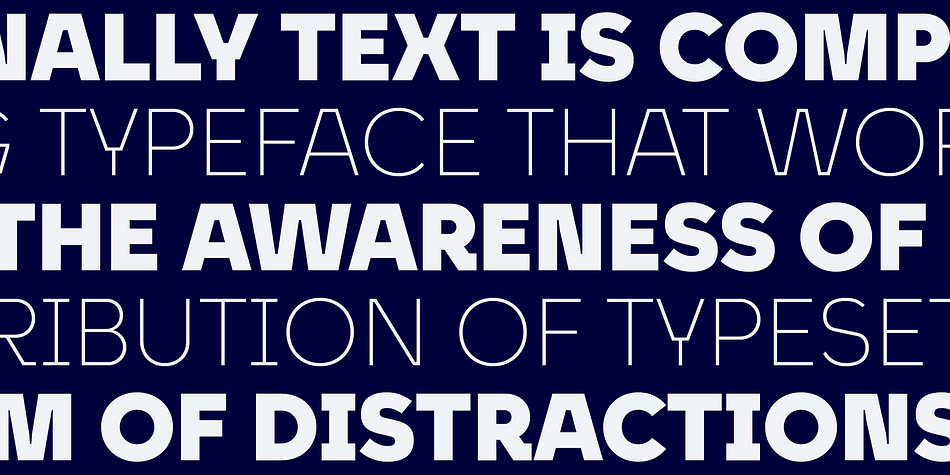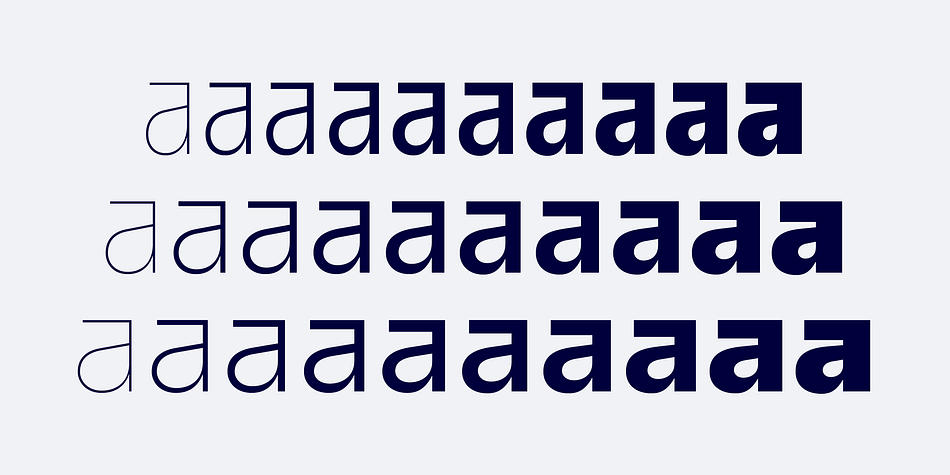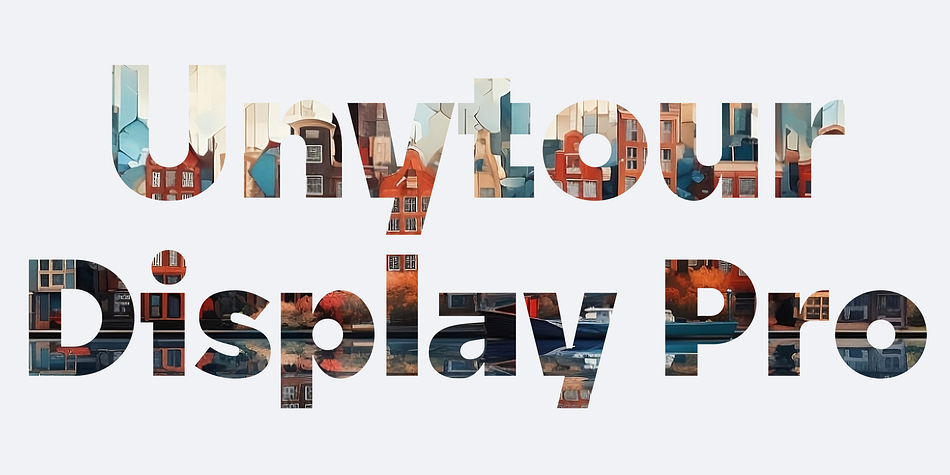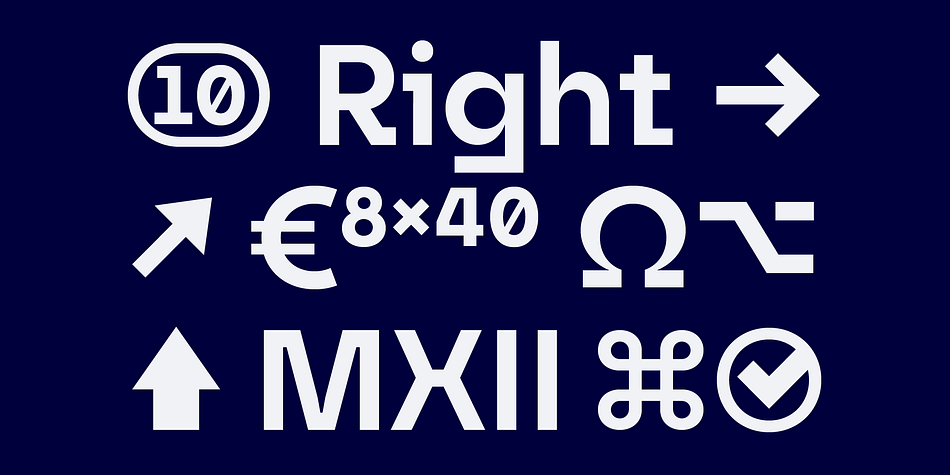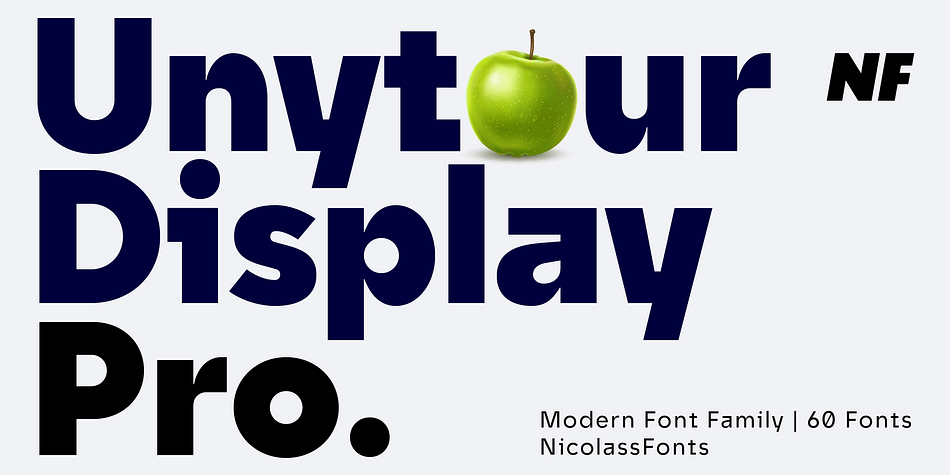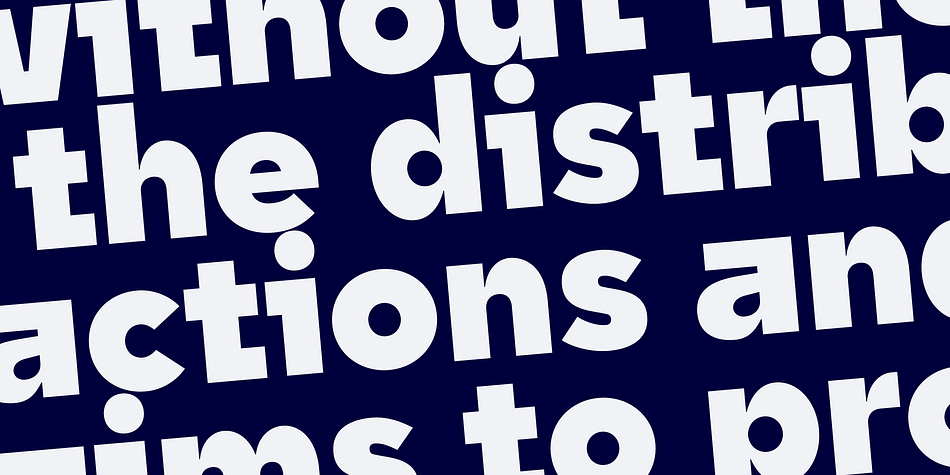
Unytour Display Pro
Designed by Nikolay Savchuk, Unytour Display Pro is a sans serif font family. This typeface has sixty styles and was published by NicolassFonts.
Unytour Display Pro is a modern sans-serif font family comprising 60 fonts. It includes 10 weights, ranging from Thin to Heavy, plus italics across 3 widths. Each weight offers 1,000 glyphs, alternative characters (such as A, G, I, R, a, l, t, y), and OpenType features. Unytour Display Pro excels in legibility for both print and digital applications, including TV screens and more.